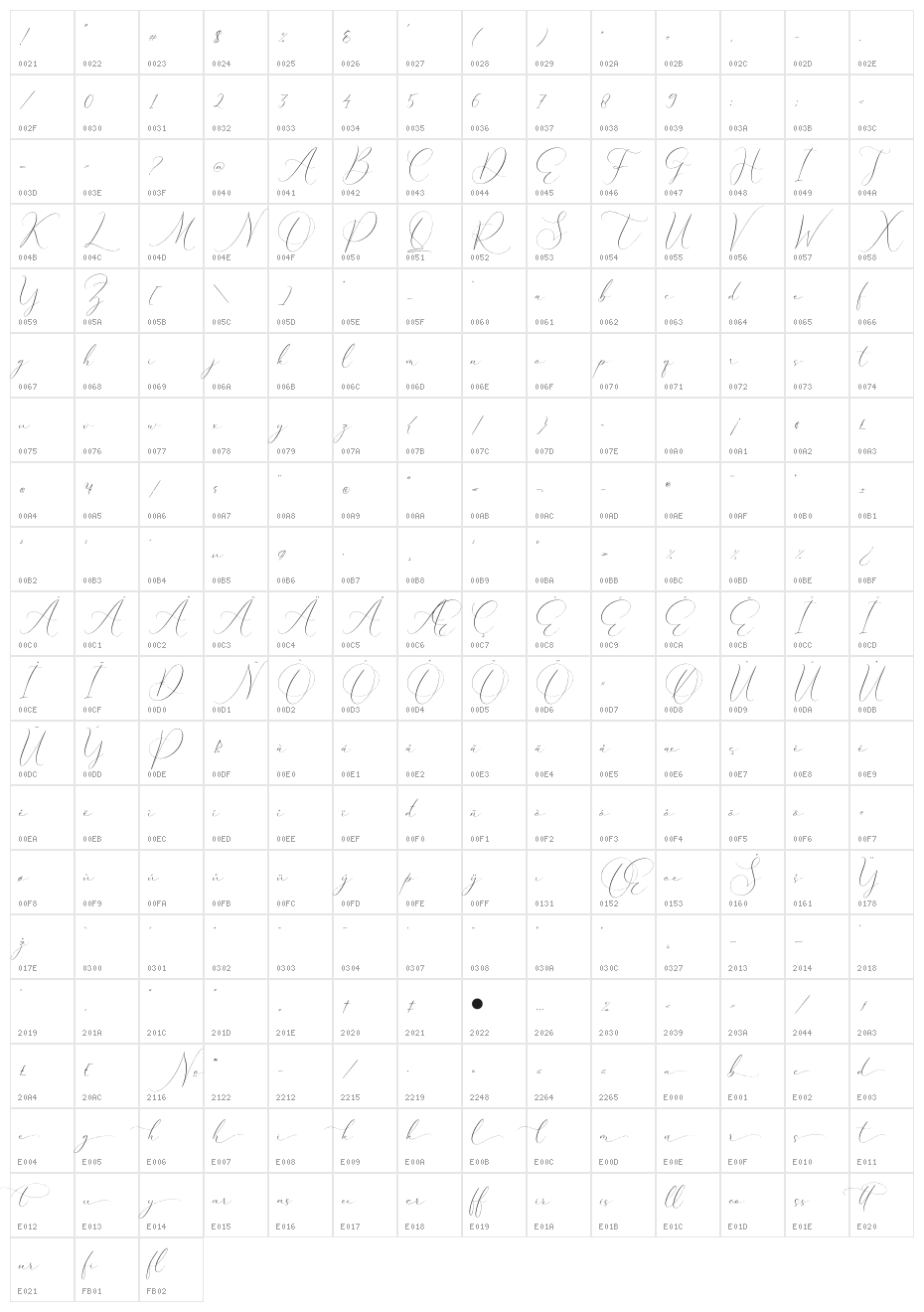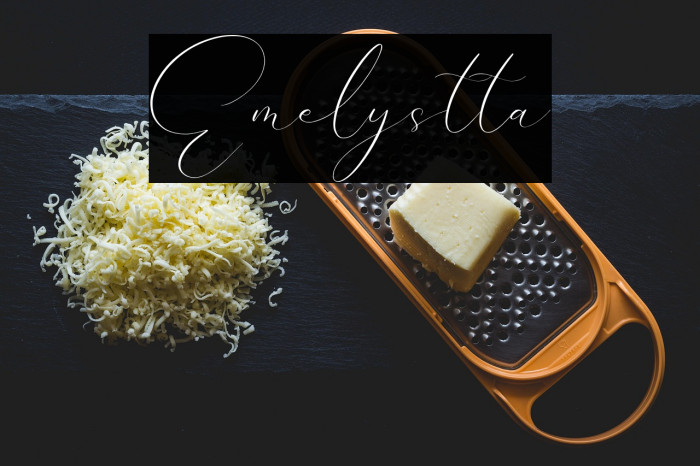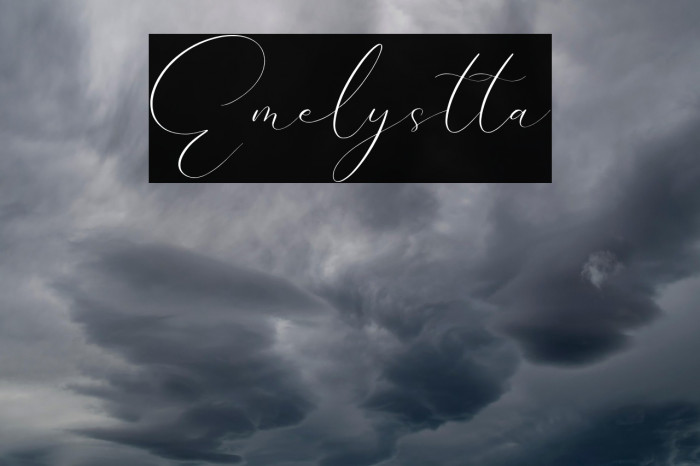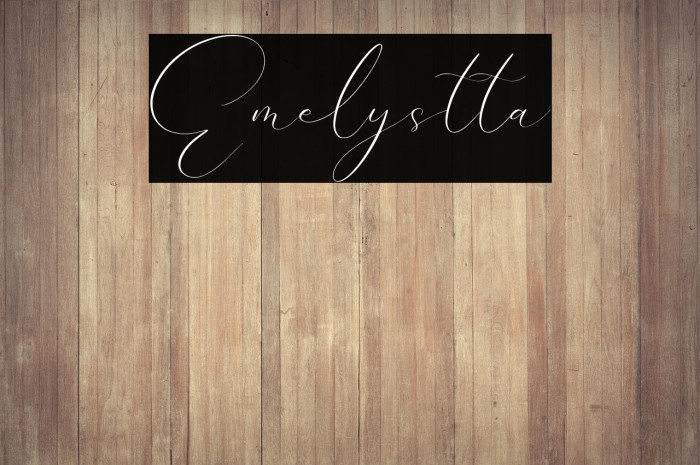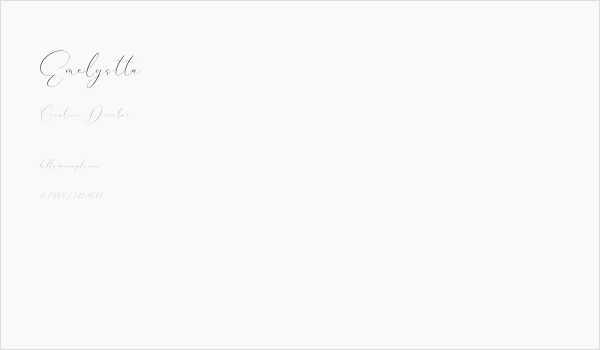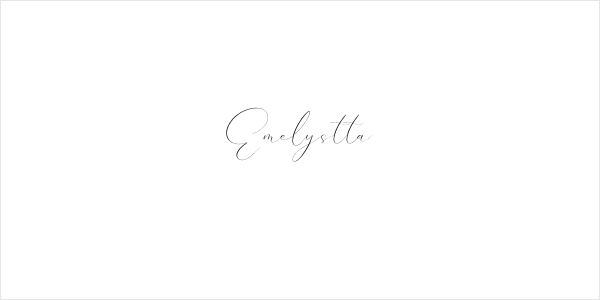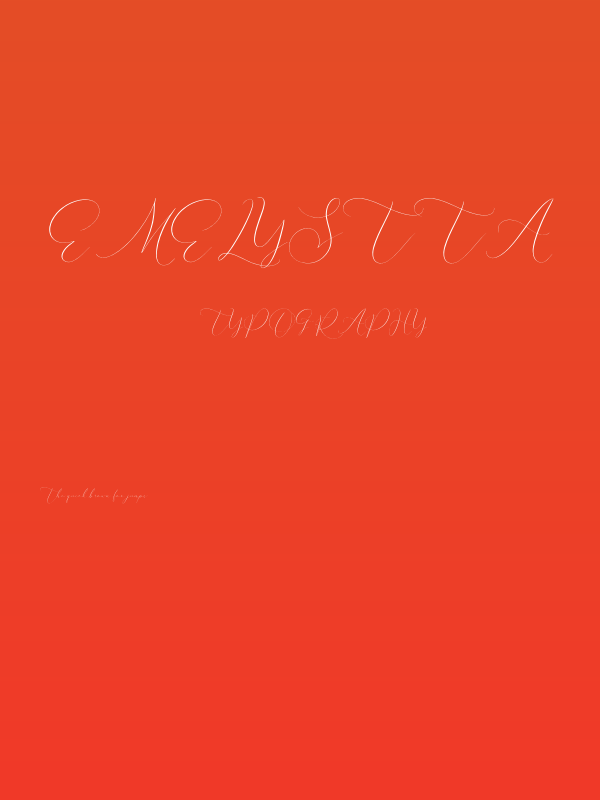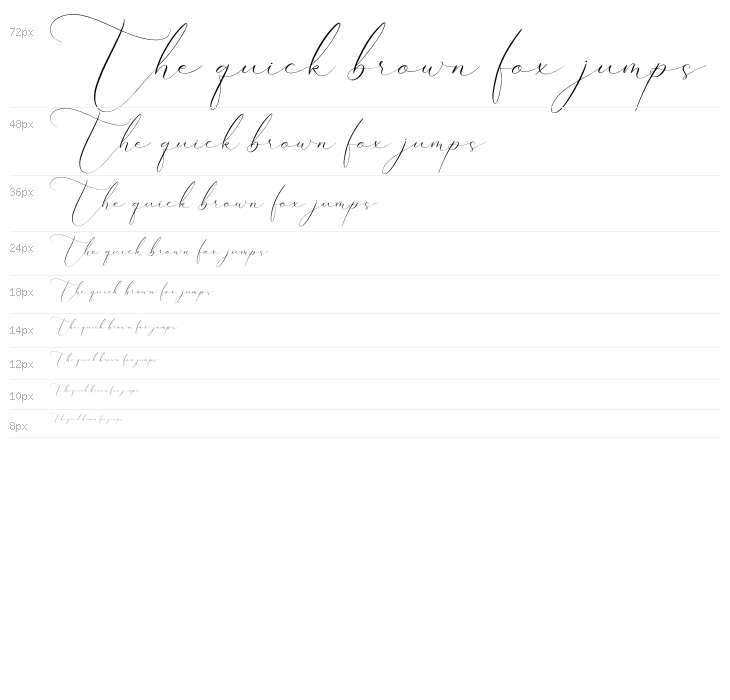
Emelystta Font
Emelystta Description
This elegant and flowing script font features delicate, swirling strokes that convey a sense of sophistication and grace. The characters are intricately designed with a high contrast between thick and thin lines, giving it a refined and artistic appearance. The uppercase letters are particularly ornate, with extended flourishes that add a touch of luxury. The lowercase letters maintain a consistent style, complementing the uppercase with their own subtle curves. The numerals and special characters are crafted to match the overall aesthetic, ensuring a cohesive look across all text. This font is perfect for projects that require a touch of elegance and class.